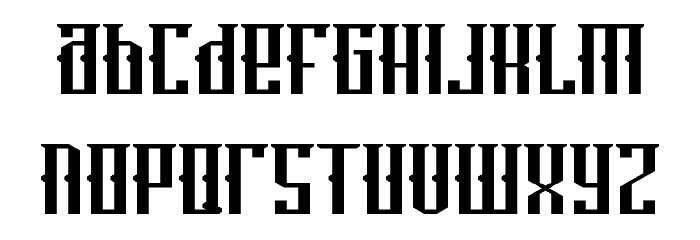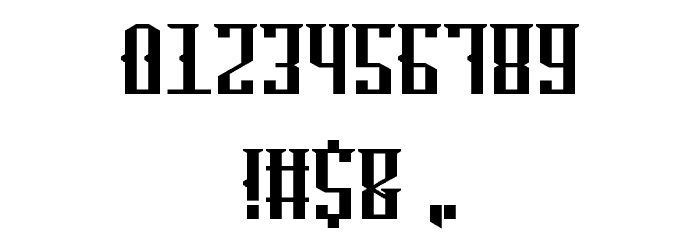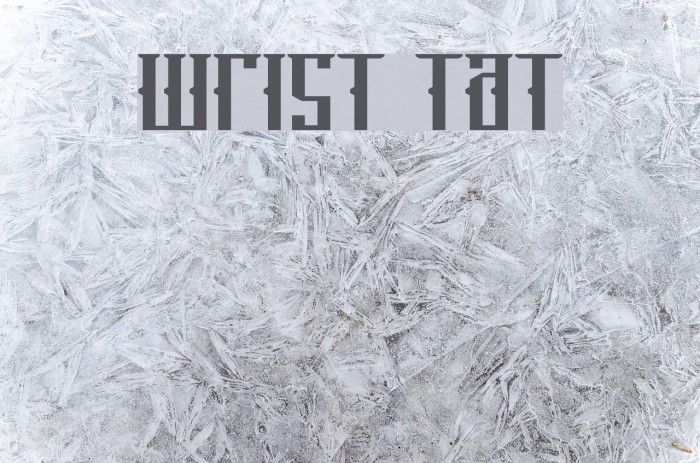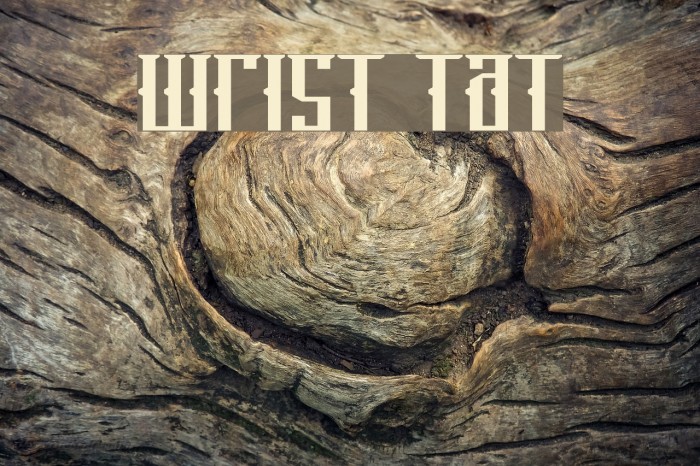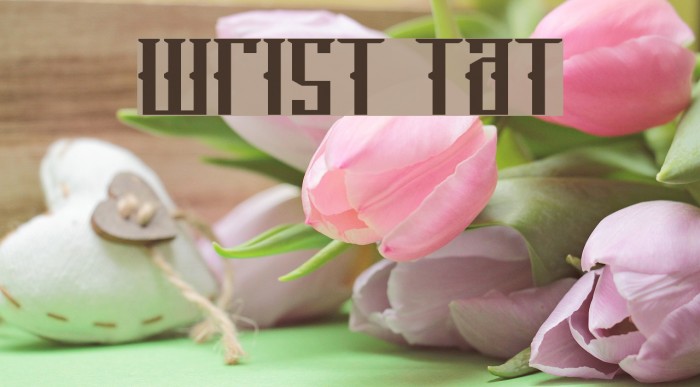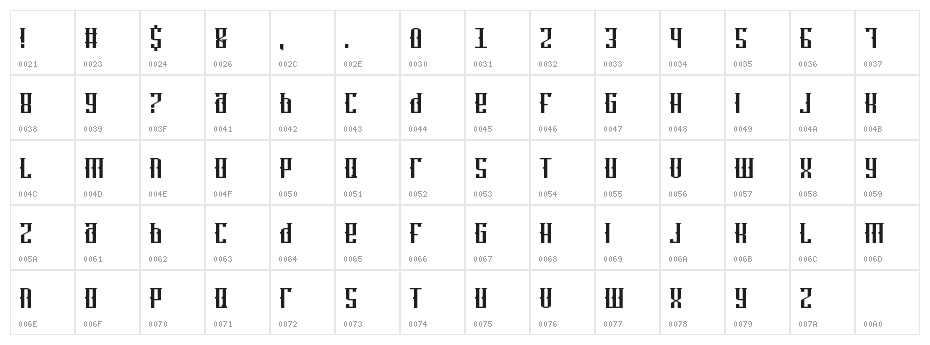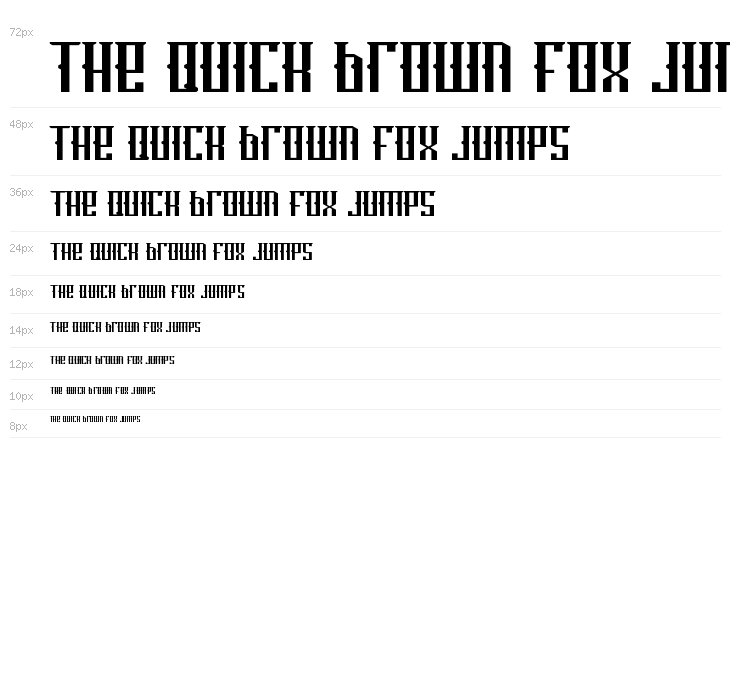
Wrist Tat Font
This font features a bold, angular design with a distinct geometric style. The characters are constructed with sharp, straight lines and right angles, giving it a modern and edgy appearance. The uppercase and lowercase letters maintain a consistent height, contributing to a uniform look. The numbers and special characters follow the same design principles, ensuring cohesion across all elements. The font's unique style makes it stand out, suitable for projects that require a strong visual impact.
A bold, angular font with a geometric and modern style.
- Proposed Projects: Ideal for tattoos, logos, posters, and branding materials that require a striking and modern aesthetic.